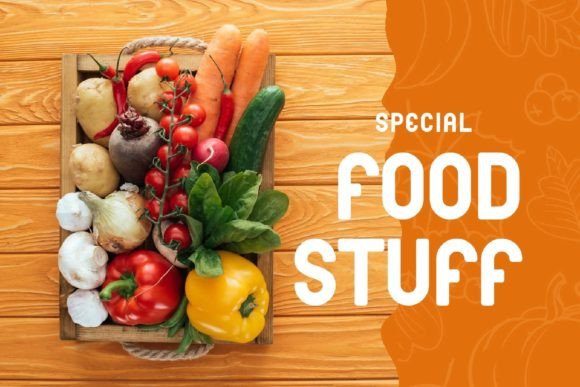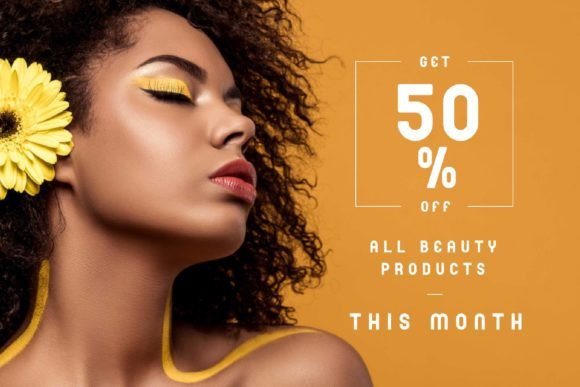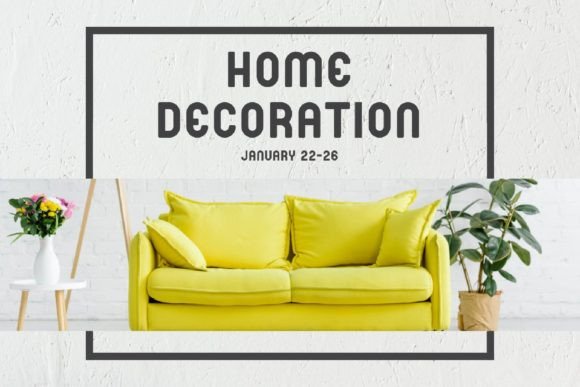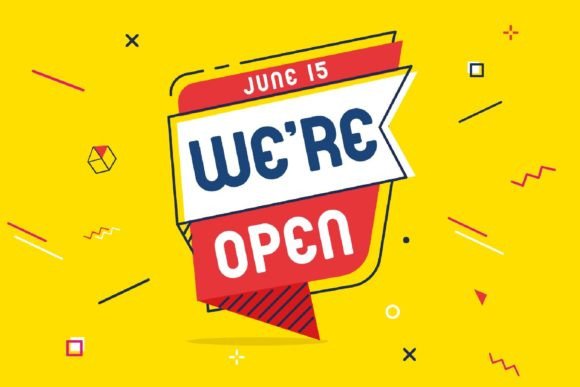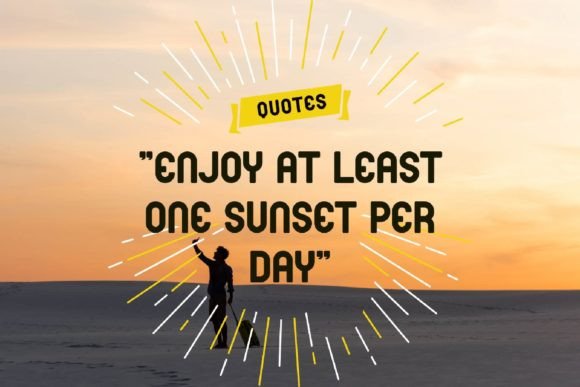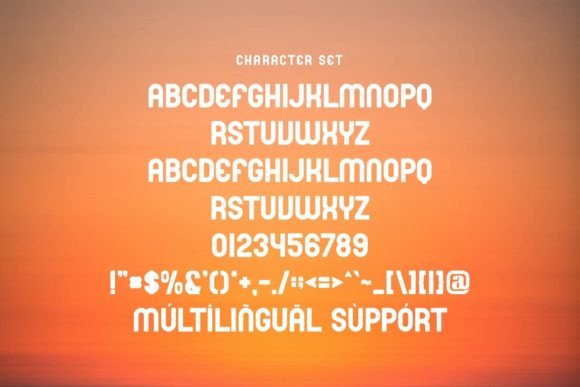
Eagon Font: The Ultimate Minimalist Typeface for Designers and Crafters
In the world of design, a good font can make all the difference. It’s the foundation of any visual project, and choosing the right one can elevate your work from ordinary to extraordinary. If you’re a designer or crafter looking for a versatile and stylish font, look no further than Eagon Font. Inspired by the famous minimalist logo, Eagon Font is a sans-serif typeface that’s perfect for a wide range of design applications.
What is Eagon Font?
Eagon Font is a carefully crafted typeface that’s designed to be both elegant and functional. Its minimalist aesthetic makes it perfect for designs that require a clean and simple look, while its versatility ensures that it can be used in a variety of contexts. Whether you’re designing a logo, brochure, or social media graphic, Eagon Font is a great choice.
Key Features of Eagon Font
- Elegant and Versatile: Eagon Font’s minimalist design makes it perfect for a wide range of design applications, from logos and branding to brochures and social media graphics.
Uses for Eagon Font
Eagon Font is a versatile typeface that can be used in a variety of design applications. Here are some ideas to get you started:
- Logo Design: Eagon Font’s clean and simple design makes it perfect for logos and branding.
- Brochure Design: Use Eagon Font to create elegant and effective brochures that showcase your products or services.
- Social Media Graphics: Eagon Font is a great choice for social media graphics, including Facebook posts, Instagram stories, and Twitter headers.
- Advertising and Marketing: Use Eagon Font to create eye-catching ads and marketing materials that grab attention.
- Invitation Design: Eagon Font’s elegant design makes it perfect for invitations, including wedding invitations, birthday invitations, and more.
Benefits of Using Eagon Font
So why choose Eagon Font for your design projects? Here are just a few benefits:
- Time-Saving: With Eagon Font, you can create professional-looking designs quickly and easily.
- Consistency: Eagon Font’s consistent design ensures that your brand’s visual identity is cohesive and recognizable.
- Flexibility: Eagon Font can be used in a variety of design applications, making it a versatile addition to your design toolkit.
Tips for Using Eagon Font
Here are a few tips for getting the most out of Eagon Font:
- Experiment with Different Sizes: Eagon Font looks great in a range of sizes, from small captions to large headlines.
- Pair with Other Fonts: Try pairing Eagon Font with other fonts to create a unique and eye-catching design.
- Use in Combination with Images: Eagon Font looks great when used in combination with images, so don’t be afraid to get creative.
Eagon Font is a versatile and stylish typeface that’s perfect for designers and crafters. Its minimalist aesthetic, PUA encoded characters, and multi-platform compatibility make it a great choice for a wide range of design applications. Whether you’re designing a logo, brochure, or social media graphic, Eagon Font is a great choice. So why wait? Download Eagon Font today and start creating professional-looking designs with ease.